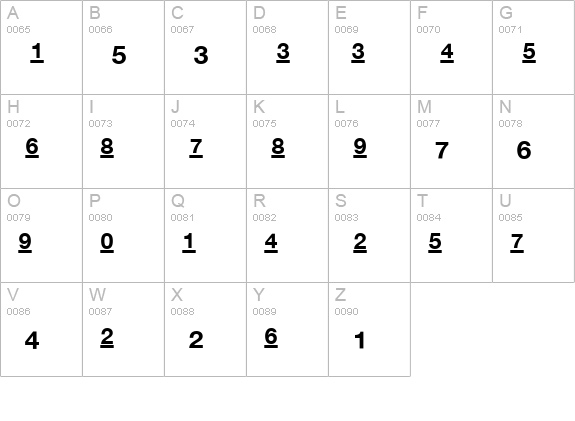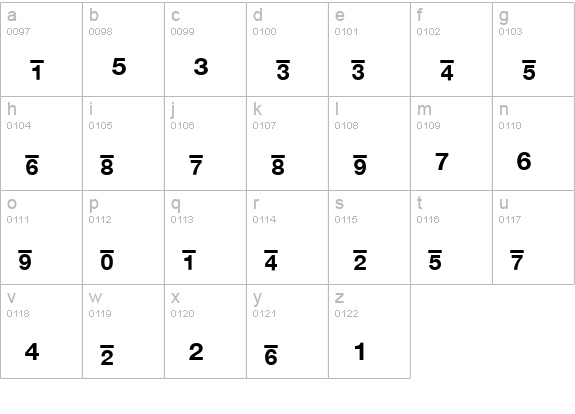
Context Fractions SSi Fractions Bold Font Details
Context Fractions SSi Fractions Bold is a strong, high-contrast variant in the Context typeface family \xE2\x80\x94 well suited to headlines, attention-grabbing titles, and strong calls-to-action.
Context Fractions SSi Fractions Bold font is a modern and stylish typeface that is perfect for adding a touch of sophistication to your projects. Its crisp lines and bold design make it ideal for headlines, titles, and other attention-grabbing text. This font is designed to enhance readability while also making a statement. What sets Context Fractions SSi Fractions Bold font apart is its versatility - it can be used in a variety of design projects, from print materials to digital graphics. Whether you're creating a sleek website or designing a sleek brochure, this font will help you achieve a polished and professional look. The best part? Context Fractions SSi Fractions Bold font is available for free download at FontsMarket.com. So, you can elevate your designs without breaking the bank. Don't miss out on this fantastic opportunity to enhance your typography game with this striking typeface!